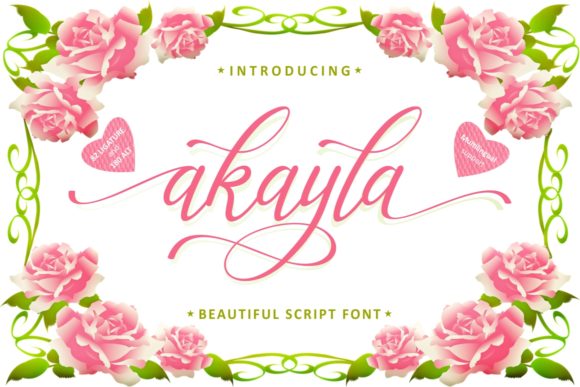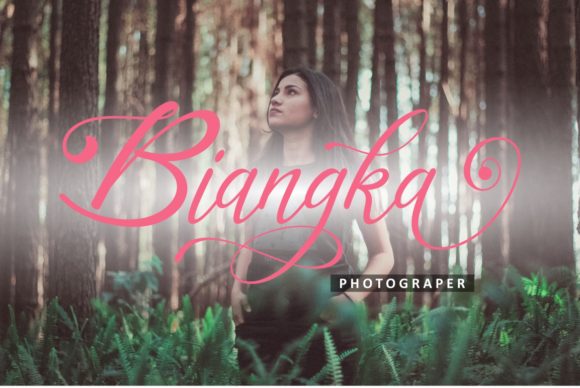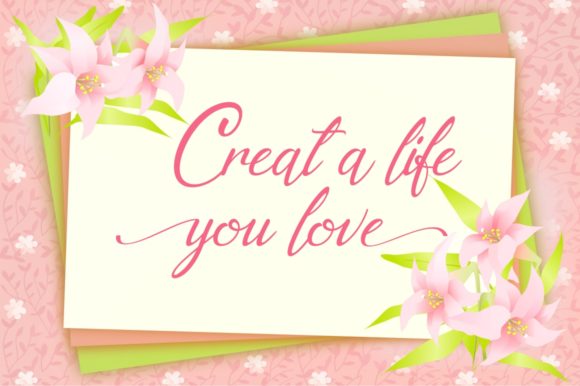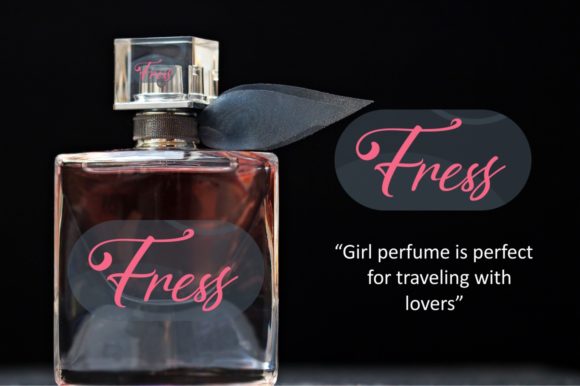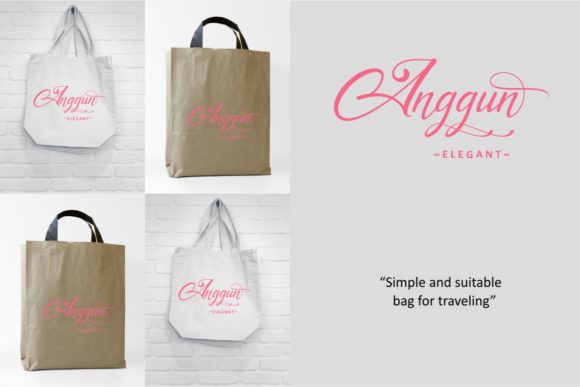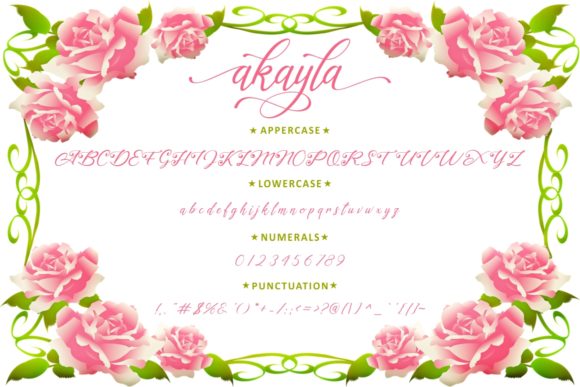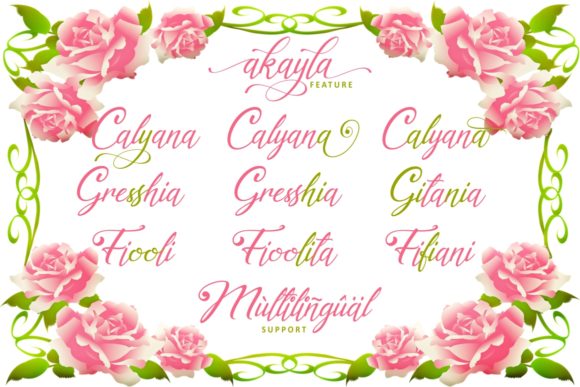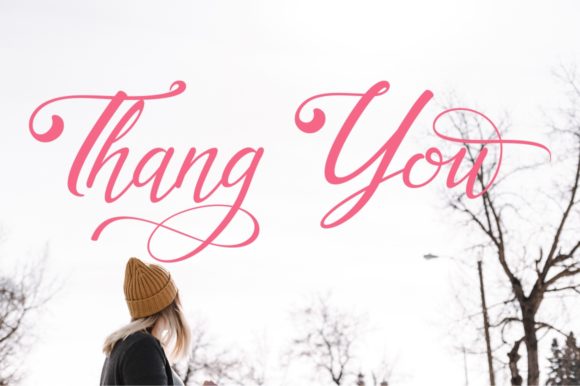
Akayla Font
About Akayla Font
Akayla is an equally delicate and elegant script with beautiful PUA-encoded swashes. It’s the perfect typeface for any crafting project that requires a romantic twist.